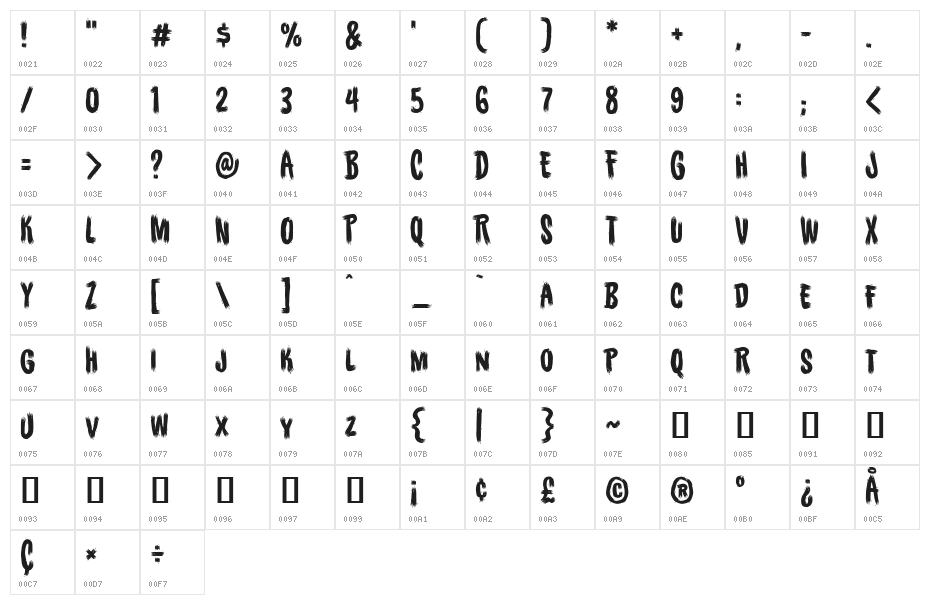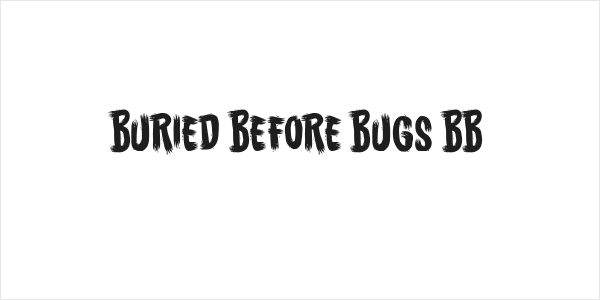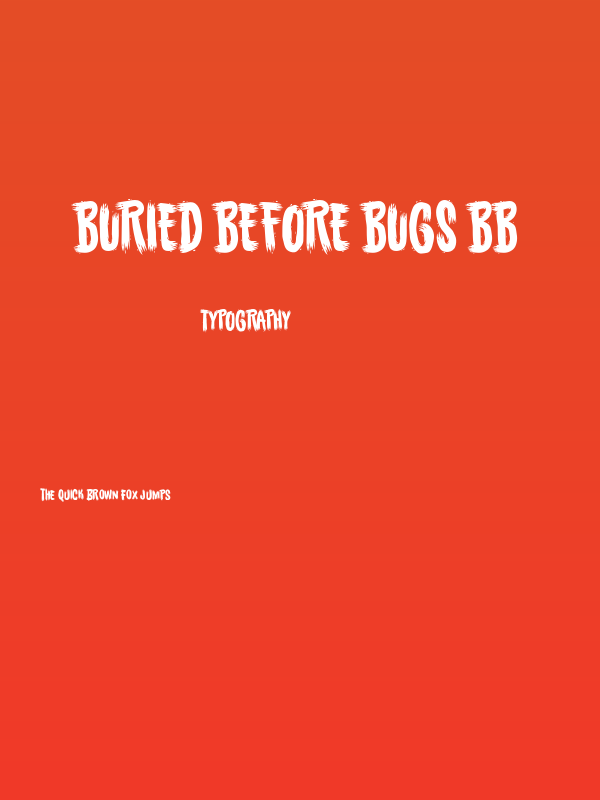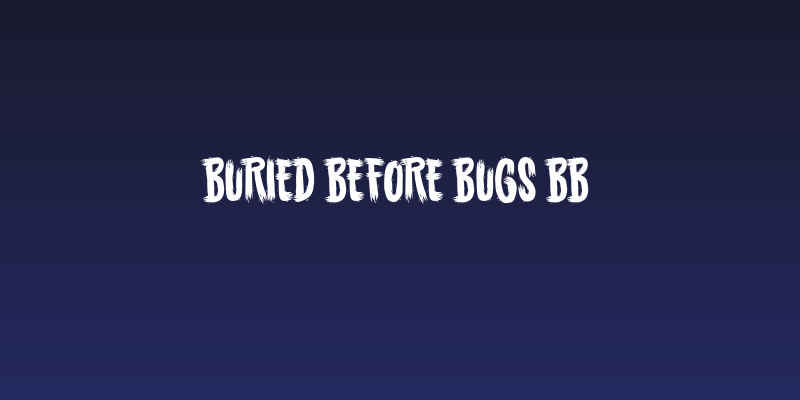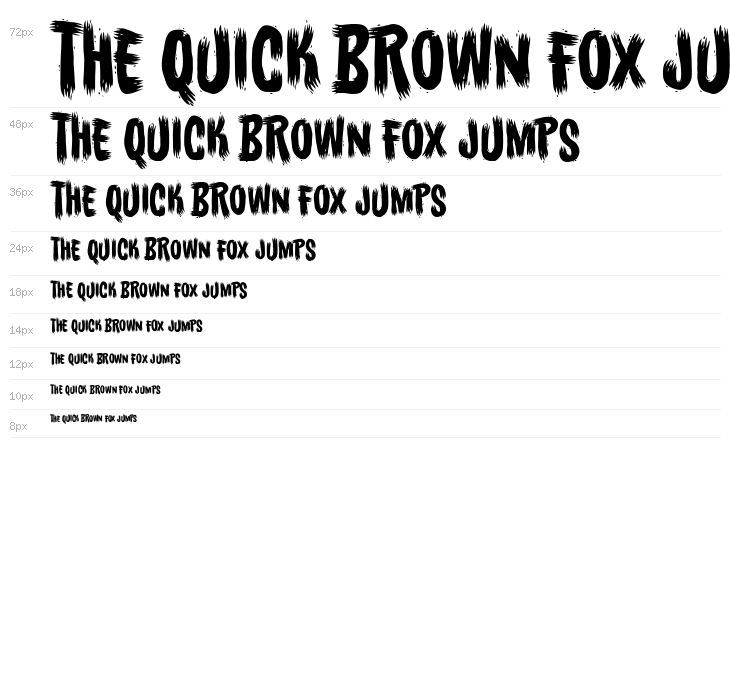
Buried Before Bugs BB Font
Buried Before Bugs BB Description
This font features a bold and dynamic brushstroke style, giving it a rugged and energetic appearance. The characters are crafted with irregular edges and varying stroke thickness, creating a sense of movement and spontaneity. The uppercase and lowercase letters maintain a consistent height, while the numbers and special characters are designed to match the overall aesthetic. This font's unique texture and bold presence make it stand out, ideal for projects that require a strong visual impact.
| Proposed Projects | Perfect for poster designs, album covers, event flyers, and branding that requires a bold and artistic touch. |